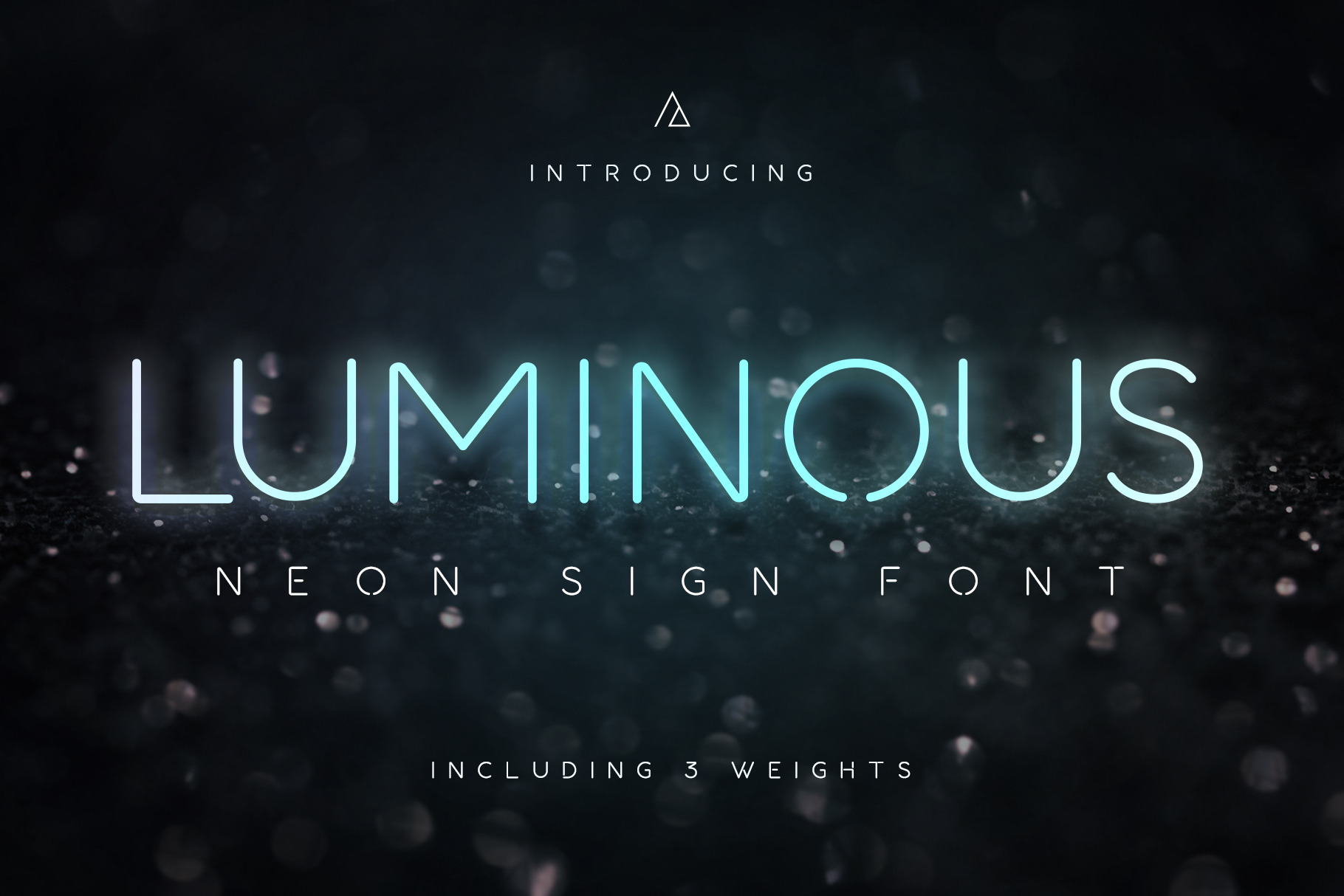
Luminous - Neon Sign Font
Luminous is a display typeface inspired by real world neon light signs, it is ideal for use as display titles and headlines on flyers, posters, album artwork etc. Each letter and number has been carefully adjusted by hand to ensure that it is still faithful to real neon tube signage, including no closed shapes and realistic gaps between separate segments.
- All uppercase letters (A-Z)
- All lowercase letters (a-z)
- All numbers (0-9)
- Common symbols and punctuation
- Language support (accented letters)
Variations & Weights:
This font includes 3 different weights that are suitable for use at different sizes:
- Light
- Bold